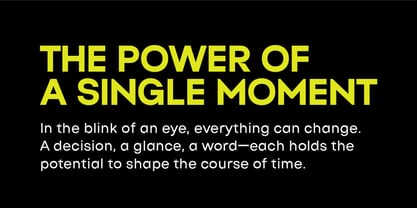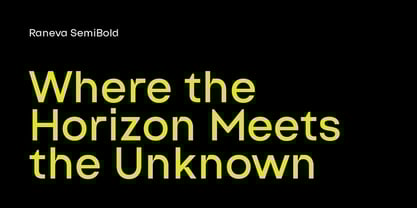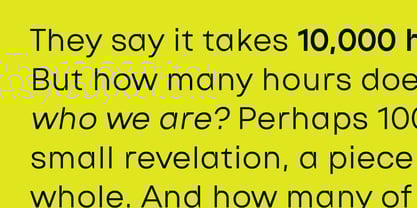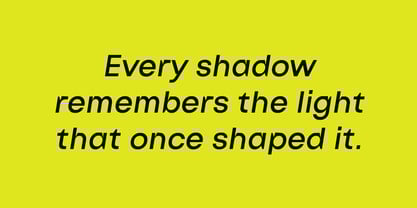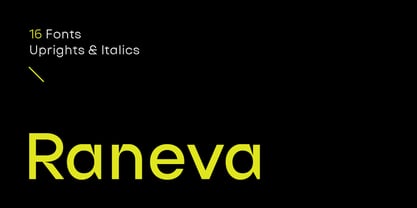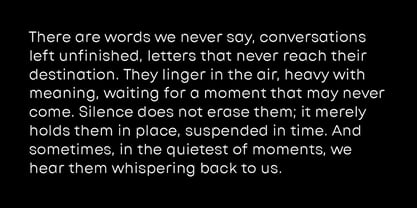
Raneva
by Serdar Ozturk
The Raneva Font Family was designed by Serdar Öztürk and published by Serdar Ozturk. Raneva contains 16 styles and family package options. More about this family
Raneva is a geometric sans-serif font family that blends modern minimalism with subtle personality. Designed to be both functional and expressive, it strikes a fine balance between technical precision and human warmth. Its clean curves, open counters, and confident rhythm make it a versatile choice for editorial design, branding, digital interfaces, and beyond.
From the delicate light weights to the powerful Extra Black, Raneva adapts effortlessly to both quiet storytelling and bold statements. The italic styles offer a soft slant with a graceful flow, adding nuance without compromising legibility.
Whether you're crafting a contemporary identity, setting elegant headlines, or building a cohesive UI system, Raneva delivers clarity, impact, and unmistakable character.
Designers: Serdar Öztürk
Foundry: Serdar Ozturk